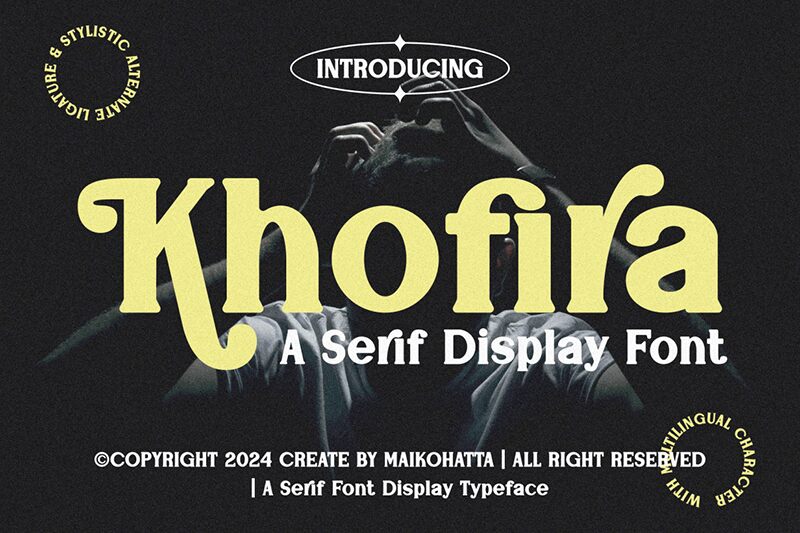
Khofira
Khofira font by Gilang Ternadho is a free bold decorative serif display font. It stands out with chubby, rounded serifs and juicy teardrop terminals that give each word a warm, inky thump. Thick stems and scooped counters create a sturdy rhythm, while the slightly compact spacing keeps headlines dense and attention-grabbing without feeling stiff.
Using Khofira, your titles read with a plush, tactile presence that shines on poster headlines, boutique branding, cafe menus, artisanal packaging, event flyers, and album covers. This free font rewards big sizes and generous margins; try a touch of extra tracking for airy drama. Pair it with a clean, low-contrast sans-serif to let those soft edges and bold shapes do the talking.